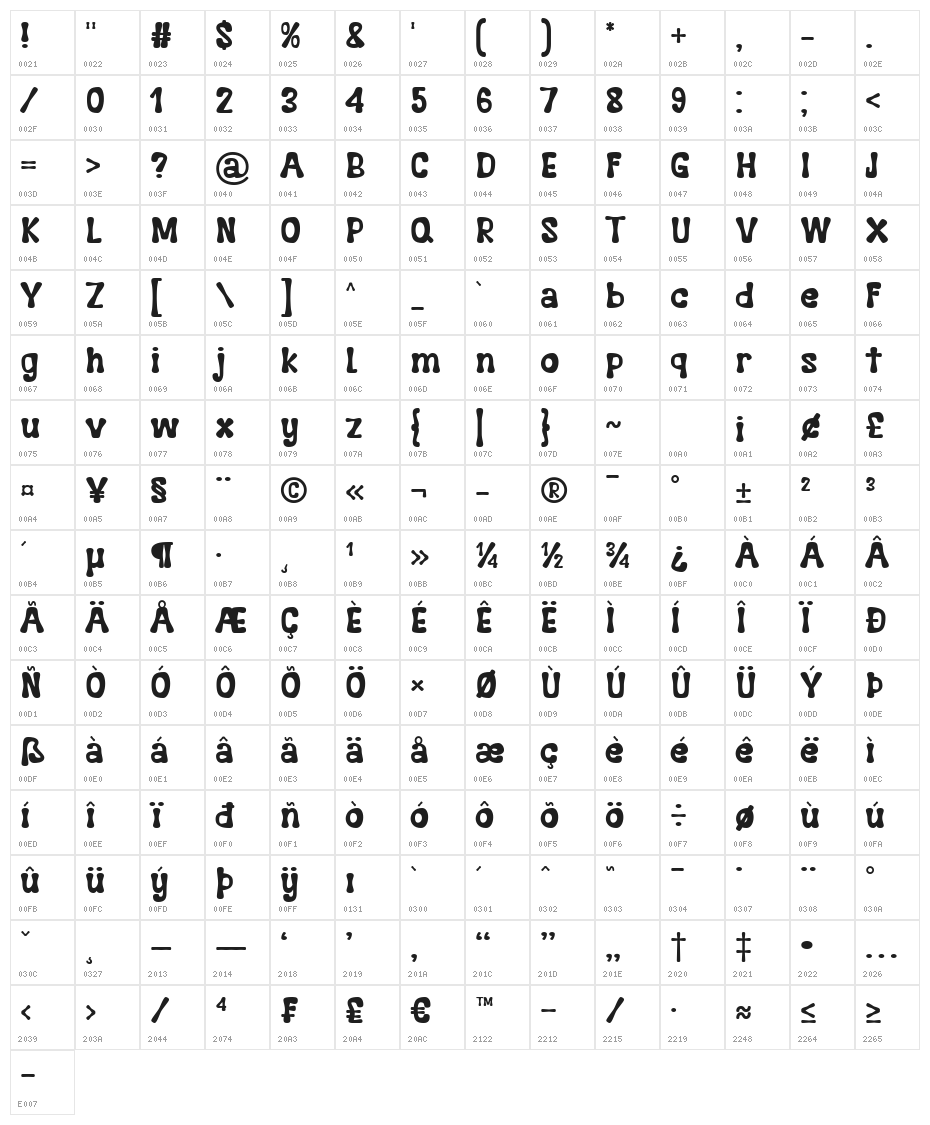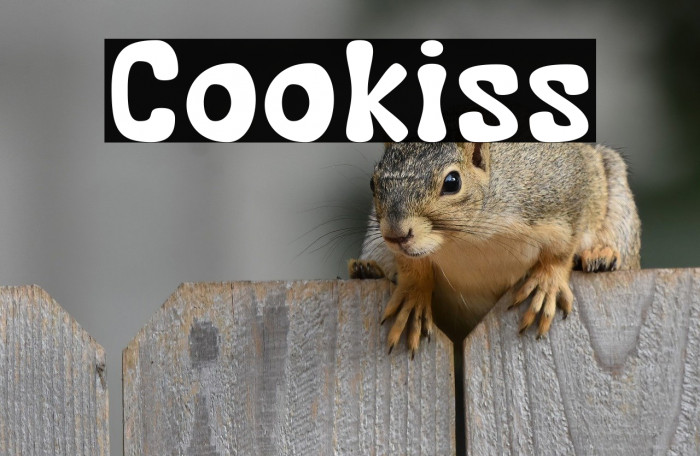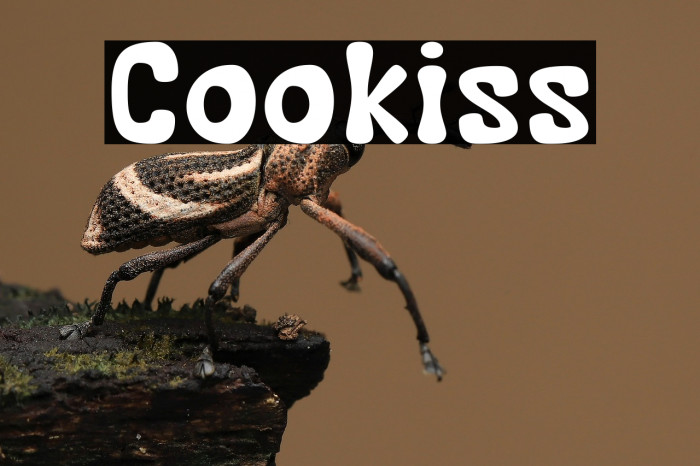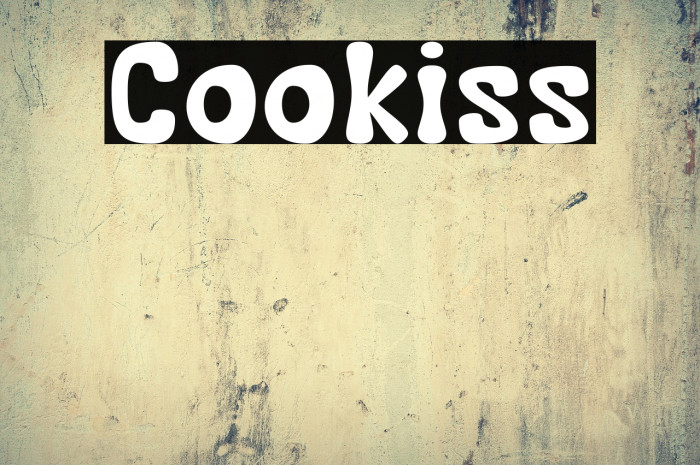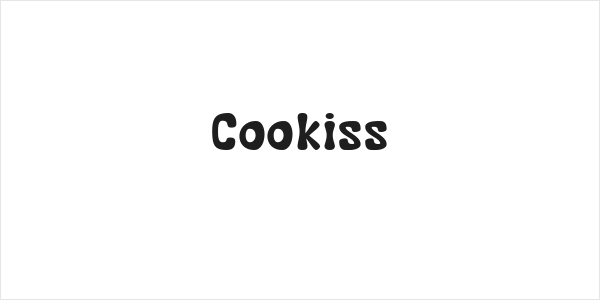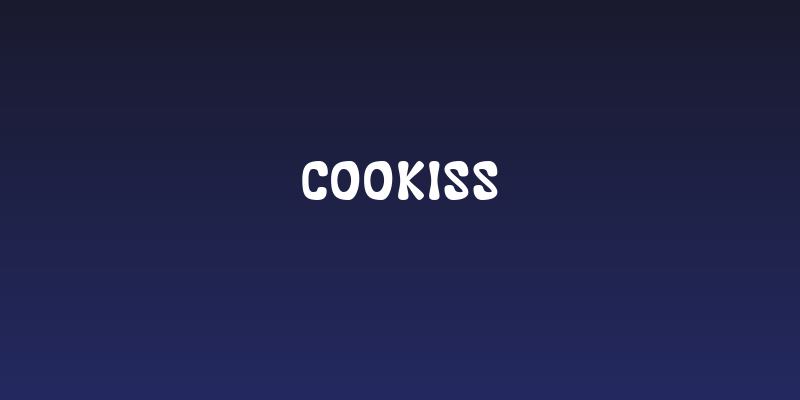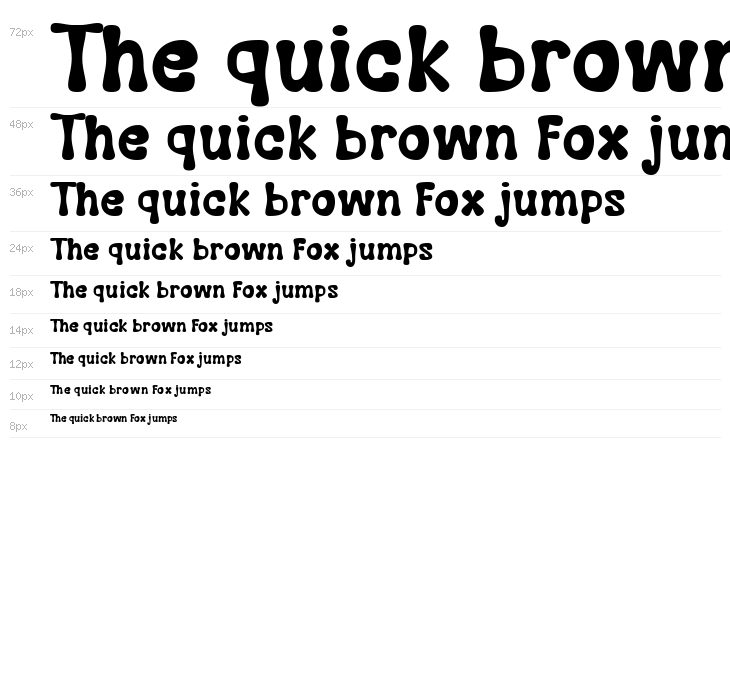
Cookiss Font
Cookiss Description
This font features a playful and rounded style with a bold presence. The characters are thick and have a slightly irregular shape, giving them a hand-drawn, whimsical appearance. The uppercase and lowercase letters maintain a consistent weight, while the numerals and special characters follow the same playful design. The strokes are smooth and rounded, contributing to a friendly and approachable feel. This font is ideal for projects that require a fun and informal touch, such as children's books, posters, or branding for playful products.
| Overall Style | Playful, Whimsical |
| Use Case | Headlines, Posters, Branding |
| Proposed Projects | Ideal for children's books, playful posters, and branding for fun products. |